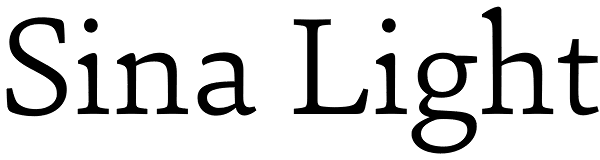
Sina
Sina is a strong, sturdy and self-confident serif accented face. Distinct ascenders and descenders in classical proportions ensure pleasant reading. Robust but assertively warm, it recalls and references the virtues of early classical printing types...